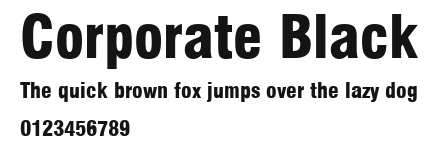
Corporate Black Preview
• Font Name: Corporate Black
• Font Style: Black
• Full Font Name: Corporate Black
About Corporate Black.ttf
Corporate Black.ttf is a modern, elegant sans-serif font designed for ultimate readability and visual harmony. Perfect for branding, headlines, web design, and print materials.